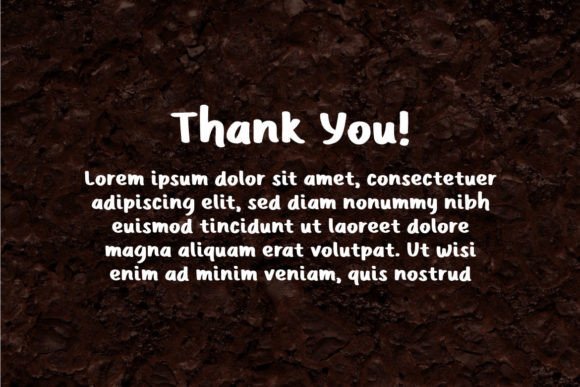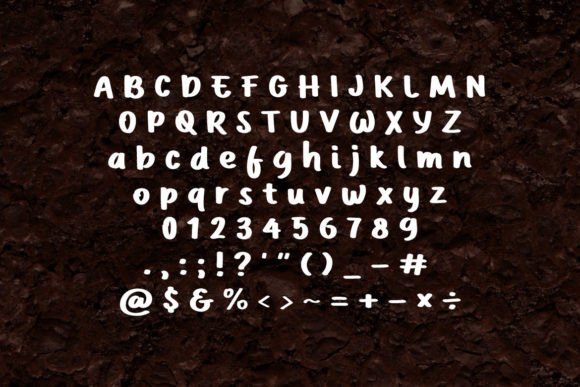
The Perfect Recipe for a Memorable Design: Brownies Font
Have you ever stared at a blank page, pencil in hand, and suddenly been hit with a wave of creativity? The ideas start flowing, and before you know it, you’re sketching out a character that’s bursting with personality. For designers, those moments of inspiration are what make all the hard work worth it. And when you’re working on a project that requires a dash of whimsy and charm, the Brownies Font is the perfect ingredient to add to your recipe.
Brownies is a bold display font that’s equal parts cute and playful, making it the perfect choice for any project that needs a little extra oomph. From book titles to music covers, and from children’s books to social media content, this versatile font can be used in a wide range of applications. Whether you’re a seasoned designer or just starting out, the Brownies Font is a valuable addition to your toolkit, offering a unique and eye-catching way to bring your ideas to life.
Brownies Font Key Features
- Font Family: Brownies Font is a unique, hand-drawn font that features a mix of elegant and playful characteristics.
- Character Set: Includes a comprehensive set of characters, including uppercase and lowercase letters, numbers, and punctuation marks.
- Size: The font is available in a single size, making it ideal for use in a variety of applications, from small text to large headlines.
- Resolution: Supports high-resolution displays, ensuring that the font remains clear and legible even at high zoom levels.
- Unique Characteristics: Brownies Font features a distinctive, handwritten style with subtle imperfections and flair, giving it a personal and artistic touch.
Brownies Font Review
Overall, I think Brownies Font is a solid choice for a casual, handwritten font. ✨ The letterforms are well-designed, with a natural flow that makes it easy to read. The font also comes in a variety of weights, which can be useful for creating visual interest in your designs.
One of the standout features of Brownies Font is its ability to evoke a sense of warmth and approachability. ✨ It’s perfect for use in logos, branding materials, and other applications where you want to create a friendly, down-to-earth vibe.
- Well-designed letterforms with a natural flow
- Variety of weights to create visual interest
- Evoke a sense of warmth and approachability
- May not be suitable for formal or professional applications
- Lack of fine-tuning in certain letters
- Not ideal for use in small font sizes
Overall, I think Brownies Font is a great choice for designers who want to add a touch of personality to their work. While it may have some limitations, its strengths make it a solid addition to any font collection.
Tip: Use Brownies Font in combination with bright, bold colors to create eye-catching designs.
Tip: Use Brownies Font to create bold, playful headings in your designs.
Tip: Use Brownies Font to create fun, playful titles and headings in your presentations.
Brownies Font is ideal for:
- Birthday party invitations and decorations
- Food and dessert-themed designs
- Children’s party and nursery decor
Alternatives to Brownies Font for Designers
Playfair Display is an elegant, high-end serif font ideal for luxury branding, weddings, and other high-end events. It features intricate details and ornate flourishes, making it perfect for creating a sense of sophistication and refinement.
Compared to Brownies Font, Playfair Display has a more luxurious feel and is better suited for formal events and high-end branding. While Brownies Font is a versatile and modern font, Playfair Display excels at creating a sense of grandeur and elegance.
Montserrat is a modern sans-serif font designed for urban environments. It’s perfect for creating a sleek, modern look and is ideal for branding, advertising, and digital design.
Compared to Brownies Font, Montserrat is more geometric and modern, making it better suited for contemporary design projects. While Brownies Font has a more playful feel, Montserrat is ideal for creating a clean, minimalist aesthetic.